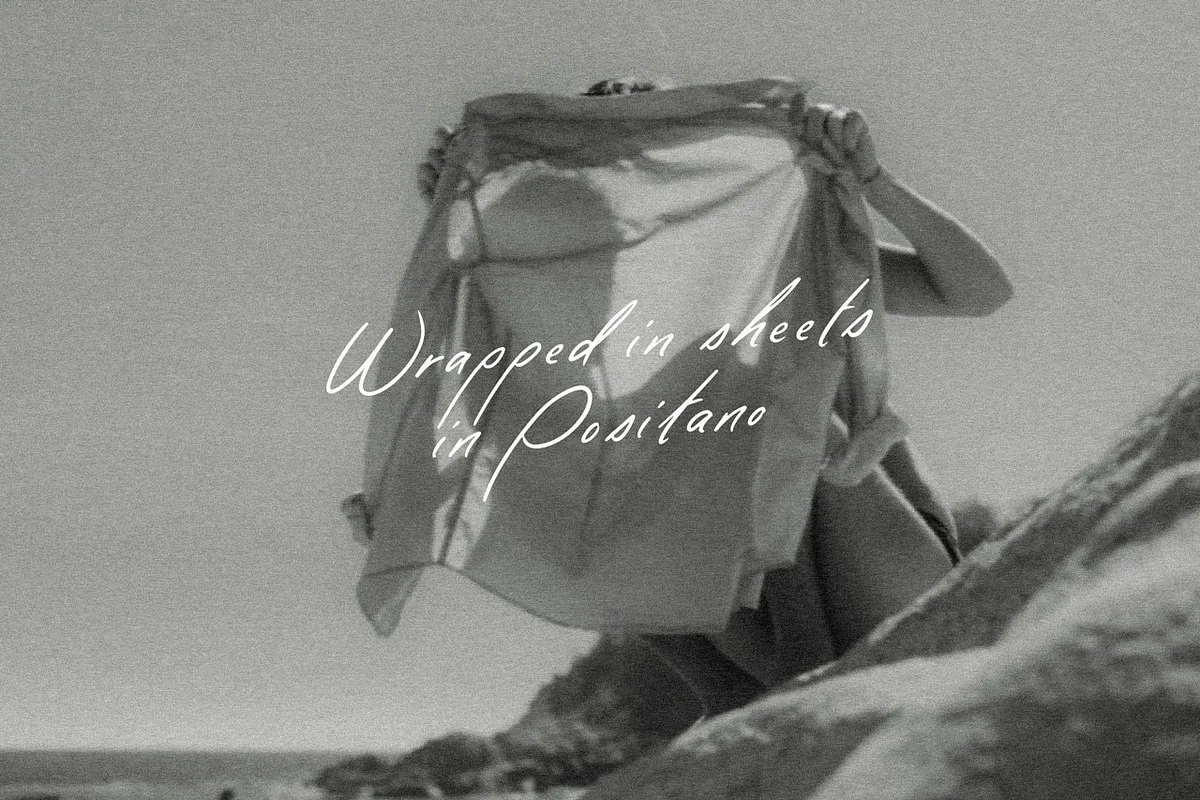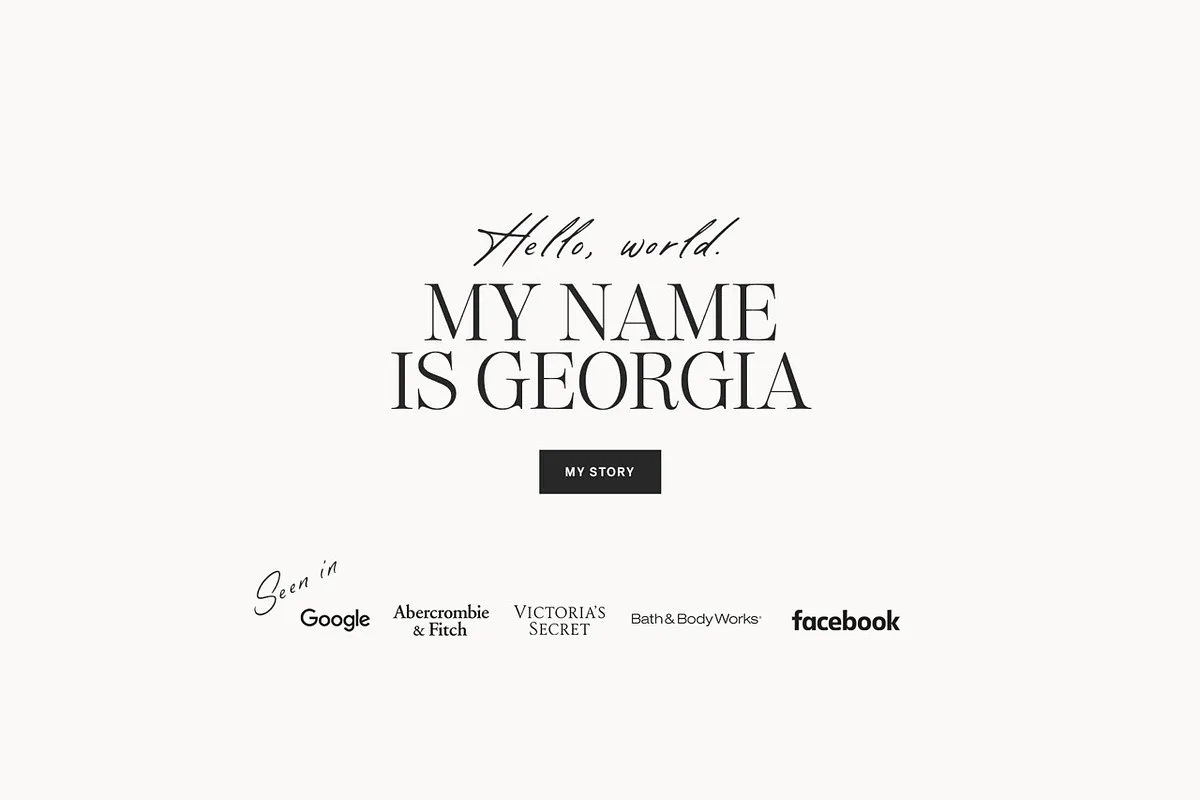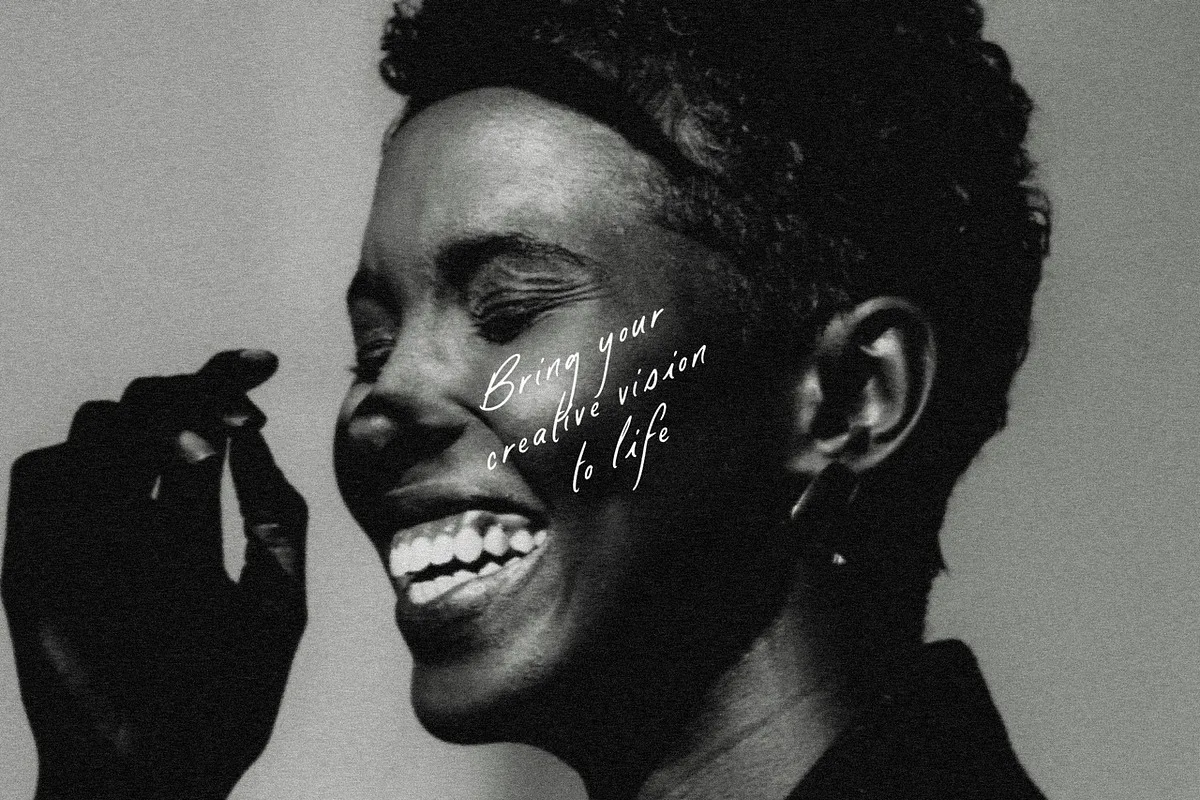
Paso Robles is a simple, yet elegant handwritten font that adds a sweet human touch to more elevated designs. With contextual alternates, letters automatically switch to avoid letter repeat patterns (especially common with handwritten fonts!).
This font can always be the right choice for a lot of creative works like handwritten quotes, logo projects, signature, album cover, merchandise, social media posts, displays, headers, invitations, save the dates, weddings, titles, product packaging, etc.
- Uppercase, Lowercase, & 0-9 contextual alternates